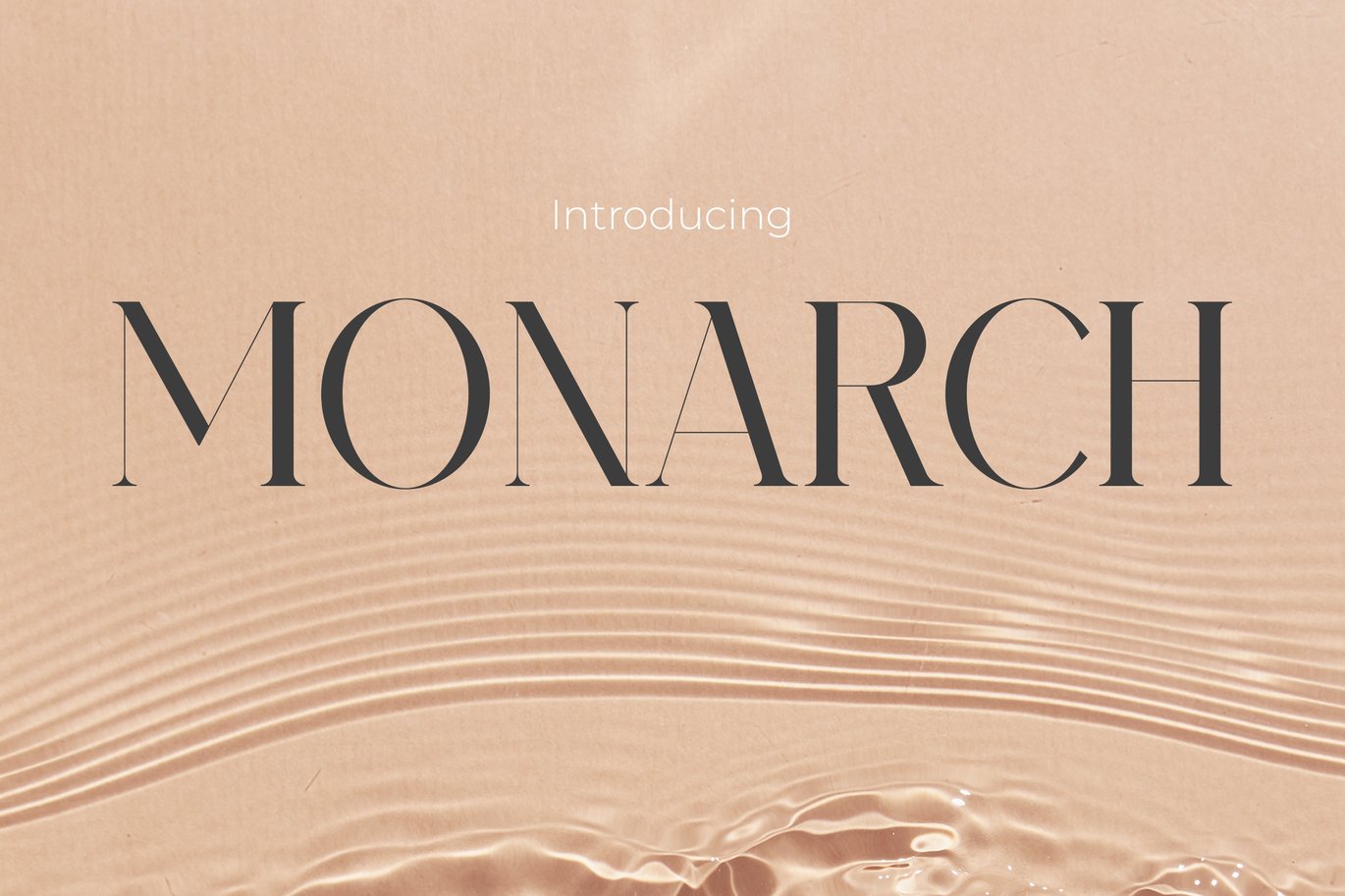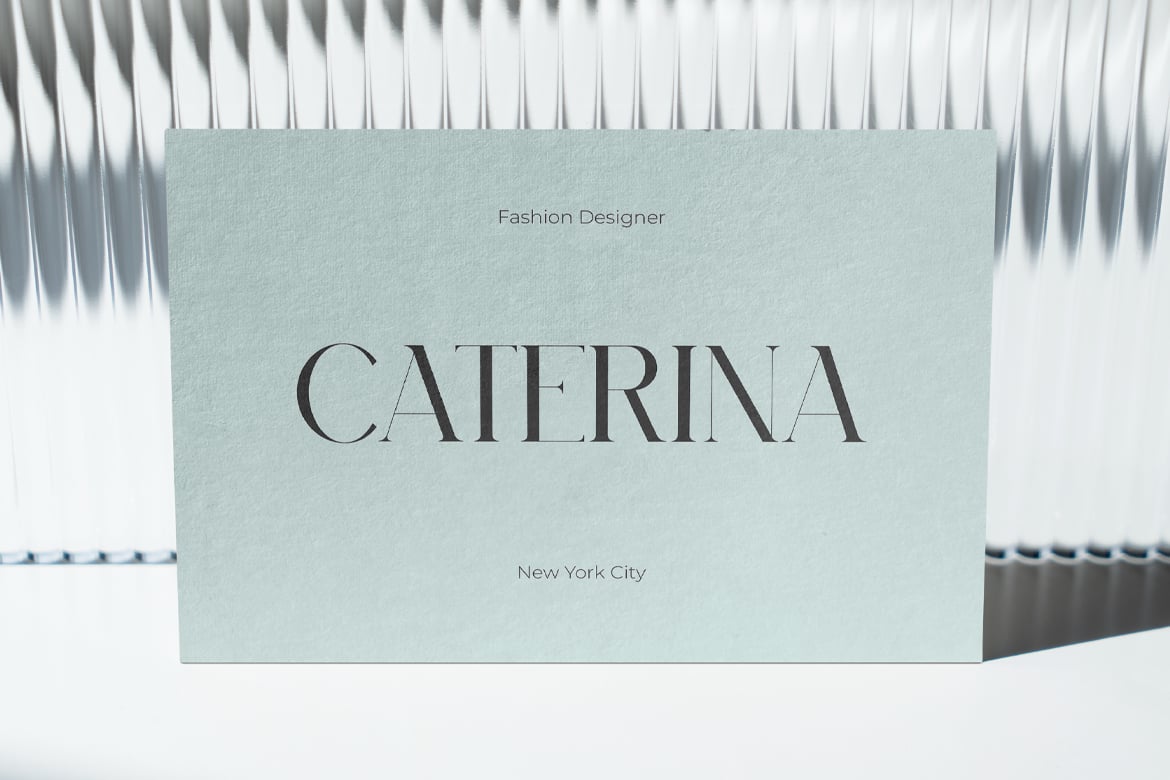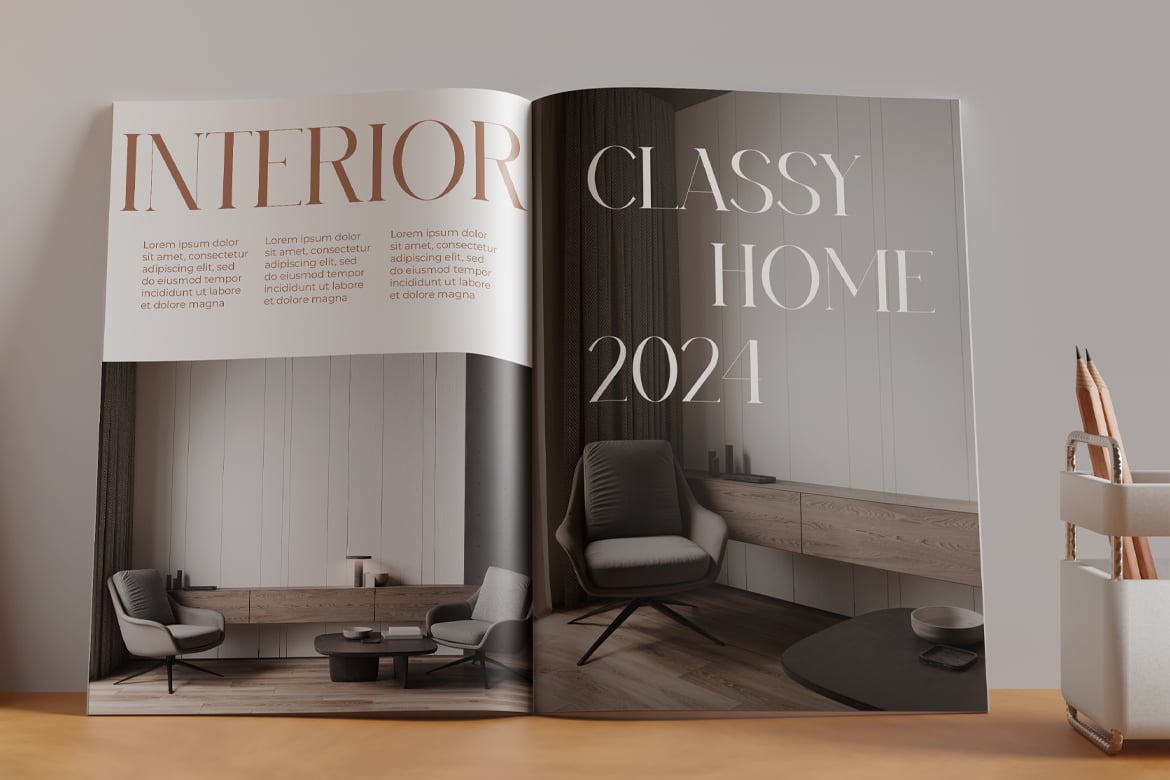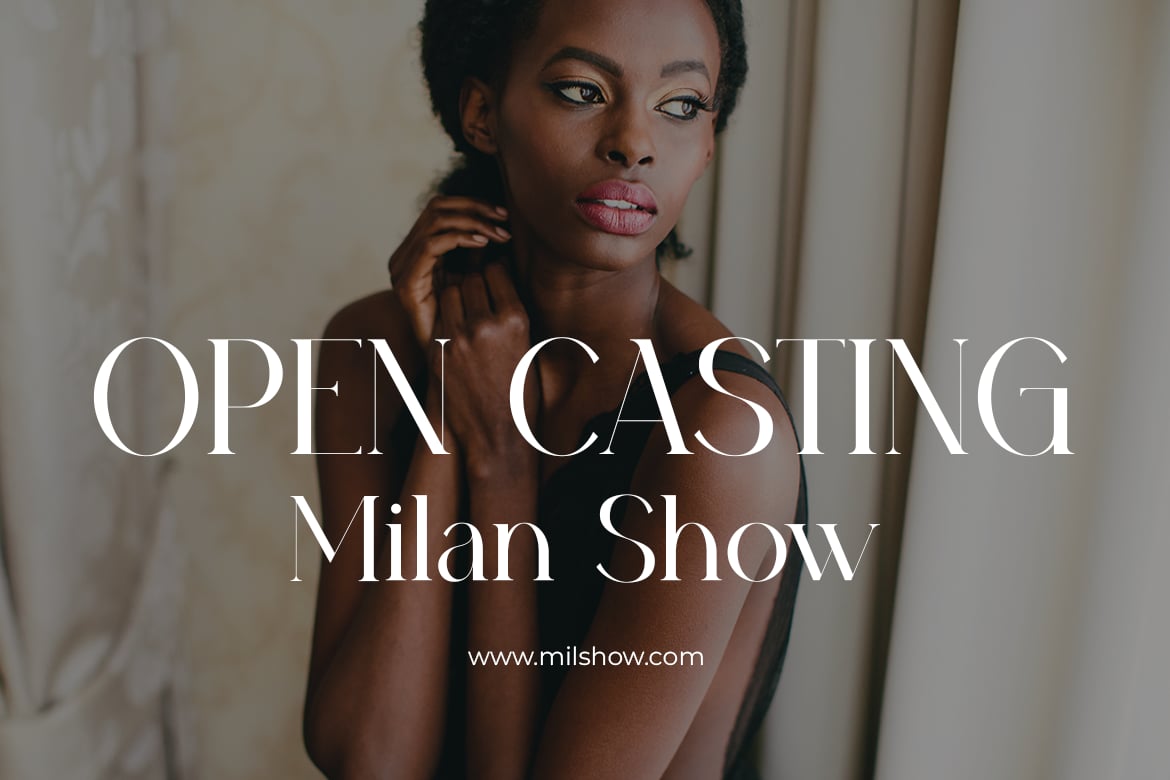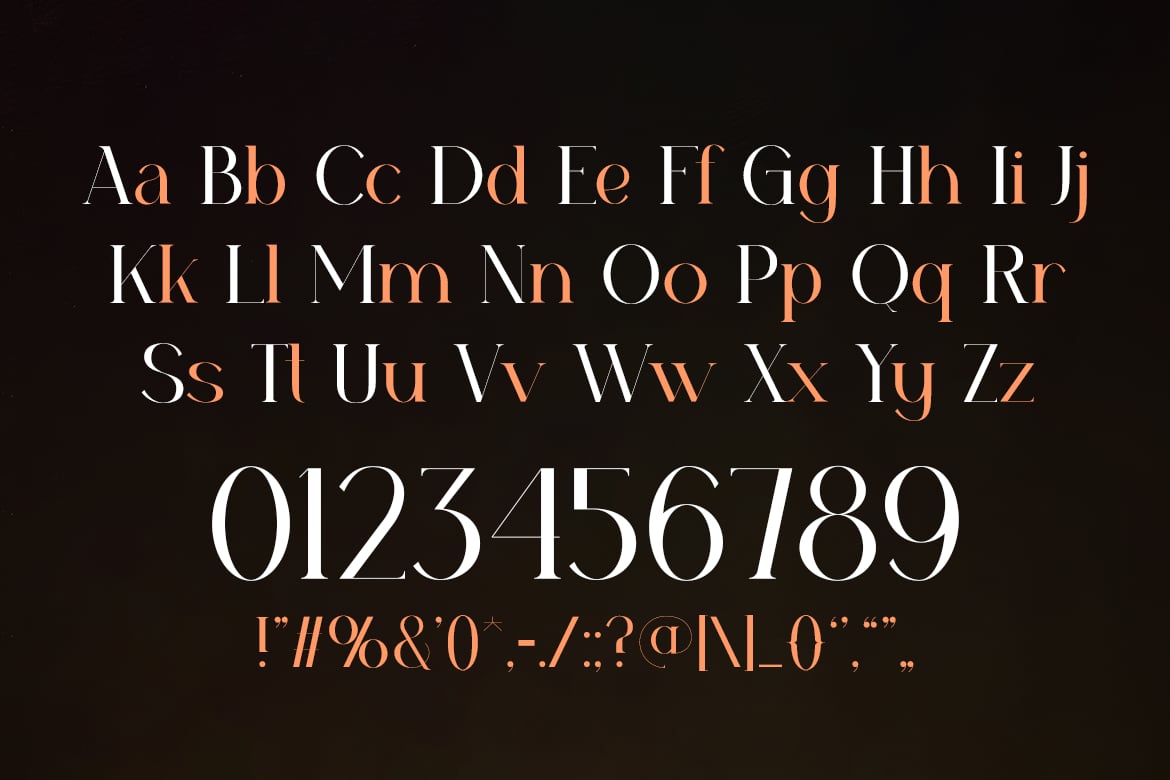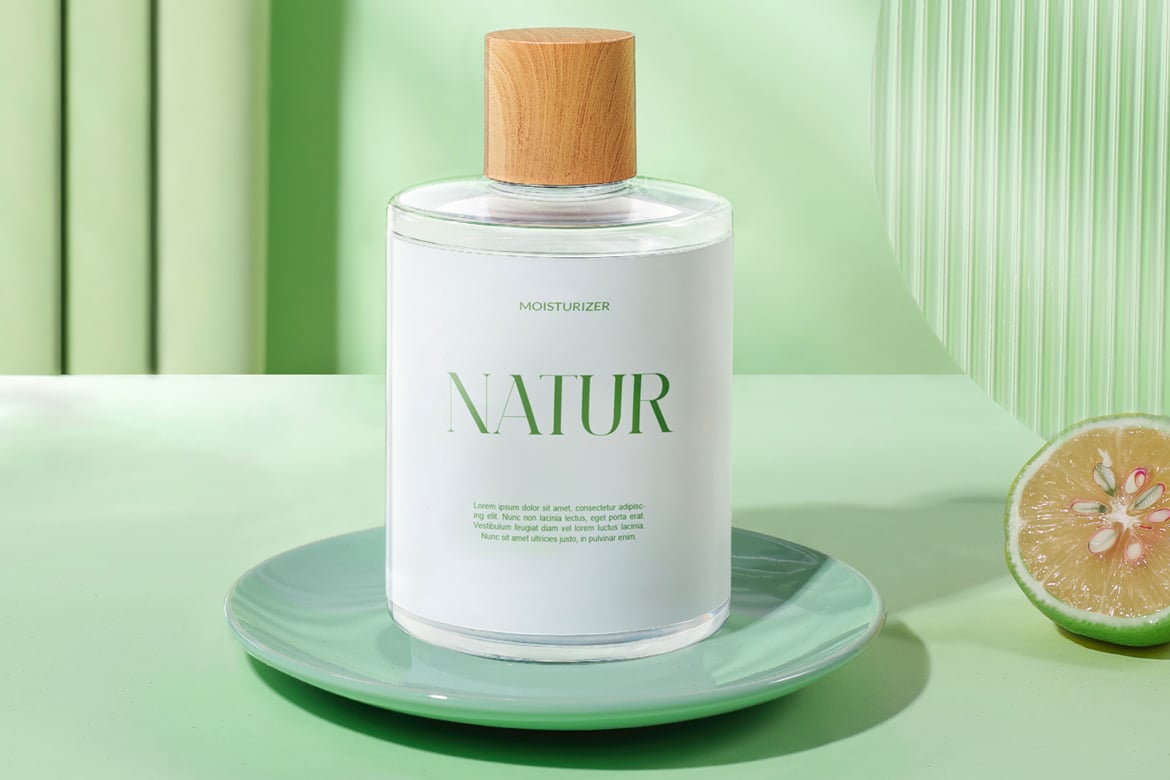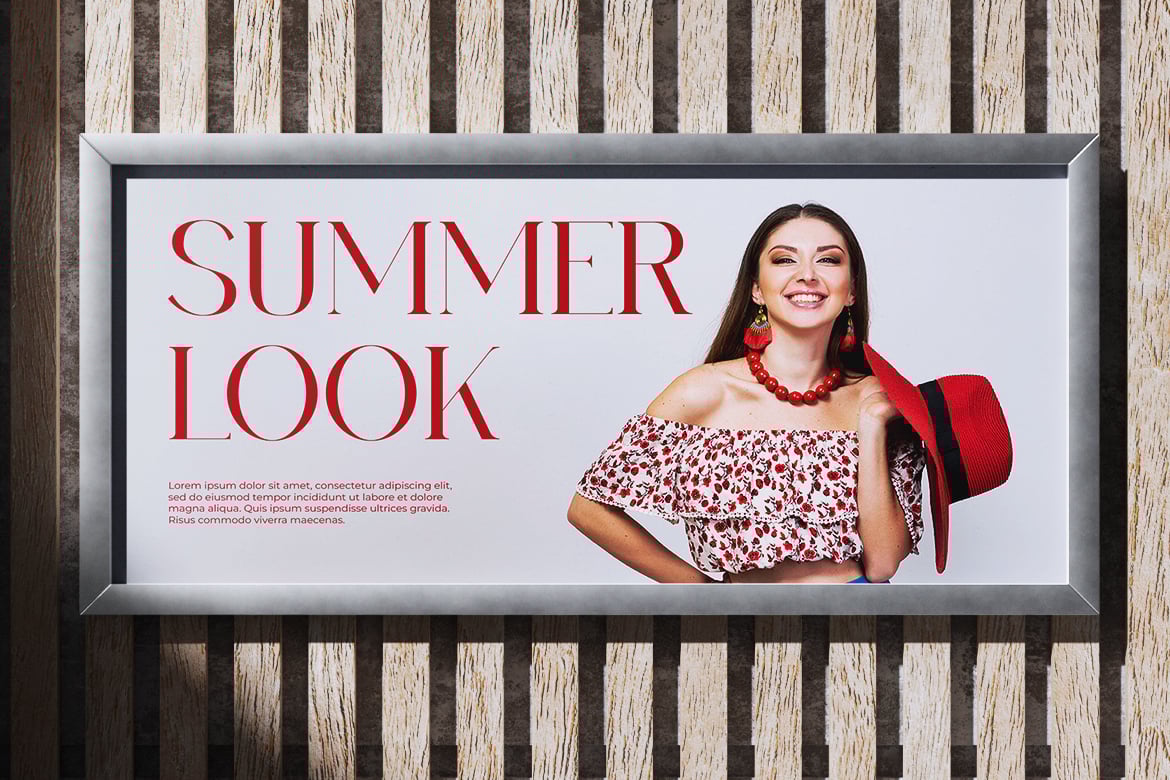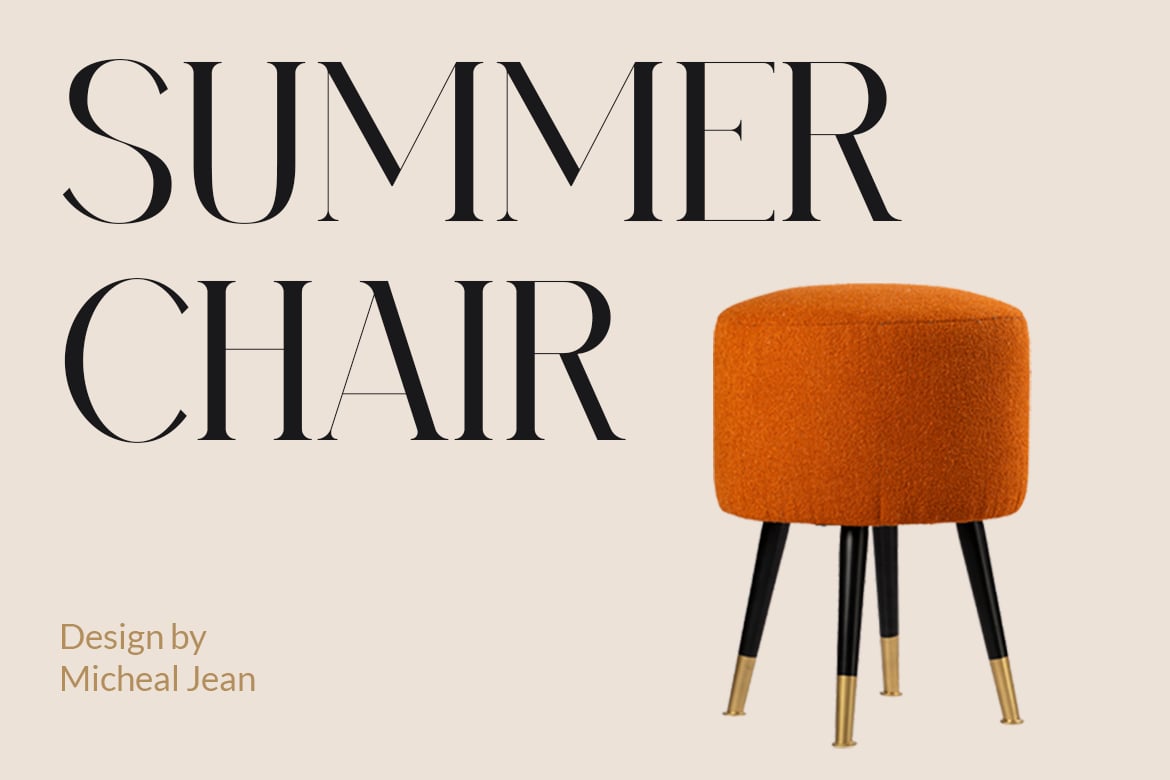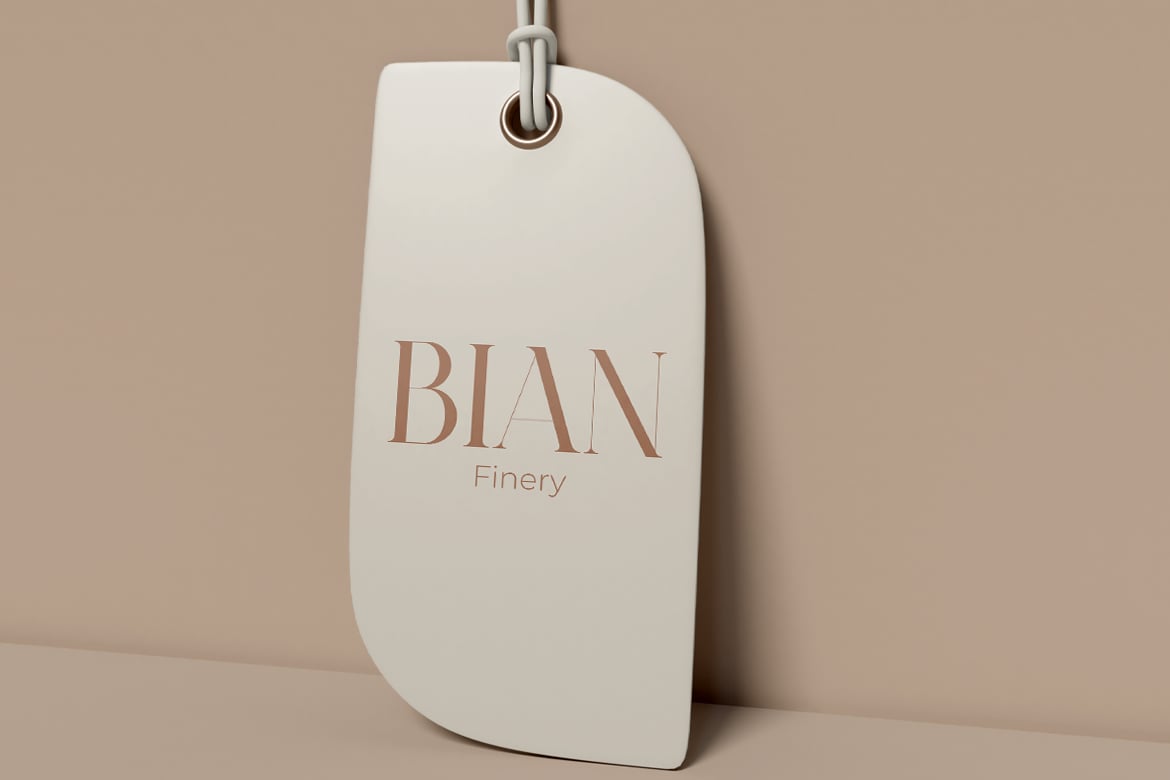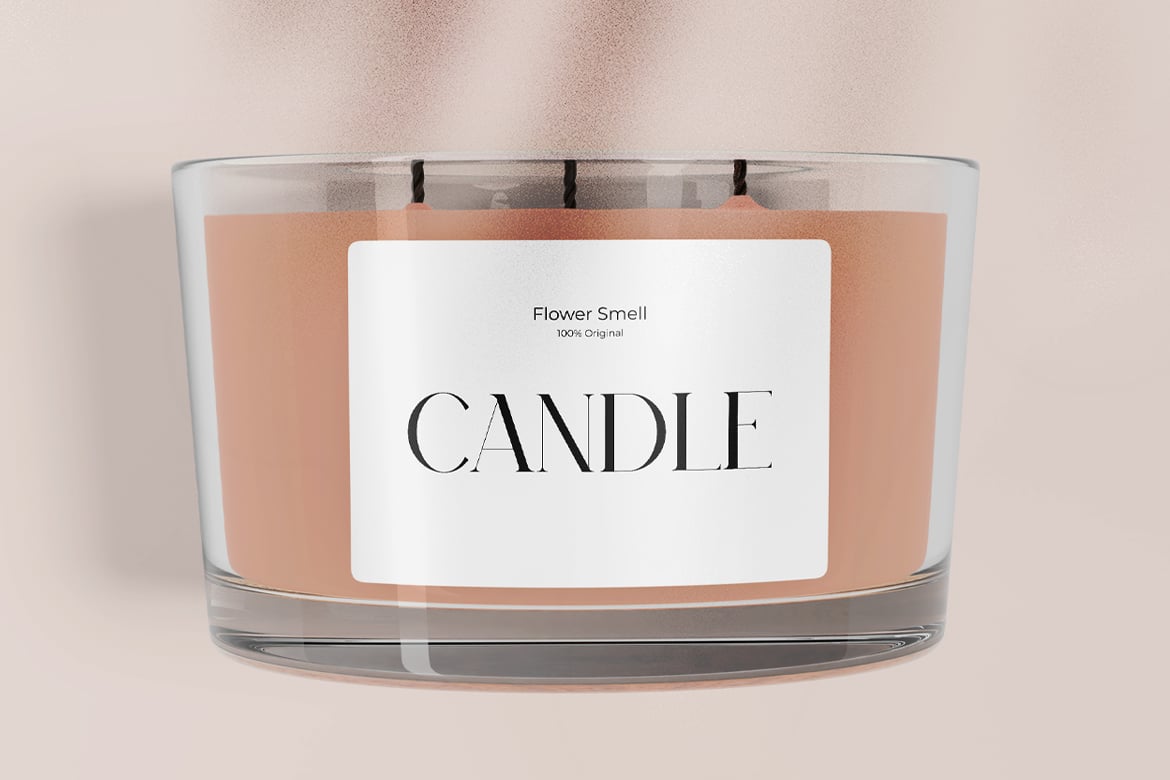
Monarch – Modern Font
Monarch is a modern serif font that exudes beauty, elegance, and luxury, making it an ideal choice for designs requiring sophistication. Crafted to blend contemporary style with classic aesthetics, Monarch elevates logos with its refined appearance and enriches quotes with its graceful presence. This font is perfect for invitations that aim to impress and posters that need to stand out with a dignified look. Whether used in greetings, packaging, or branding, Monarch ensures that every design achieves a premium and girly appeal. Its luxurious feel is also perfect for covers, enhancing books and magazines with a stylish and attractive facade. For events, headlines, and advertising, Monarch delivers impactful and visually stunning messages that captivate and allure the audience.